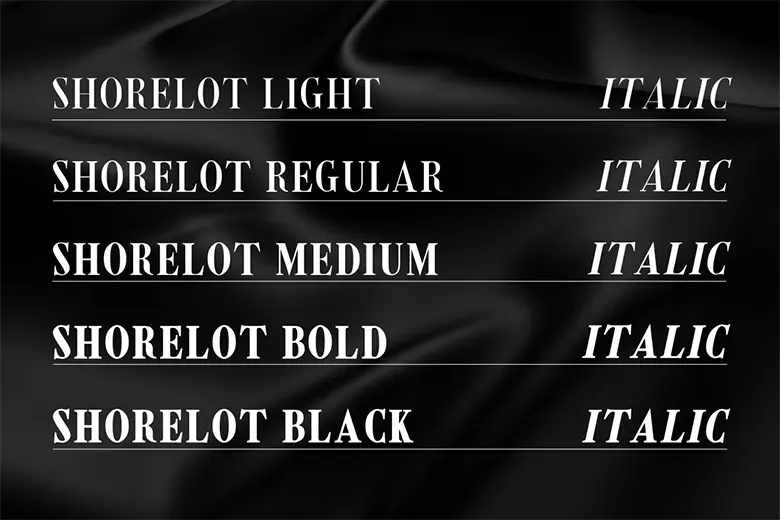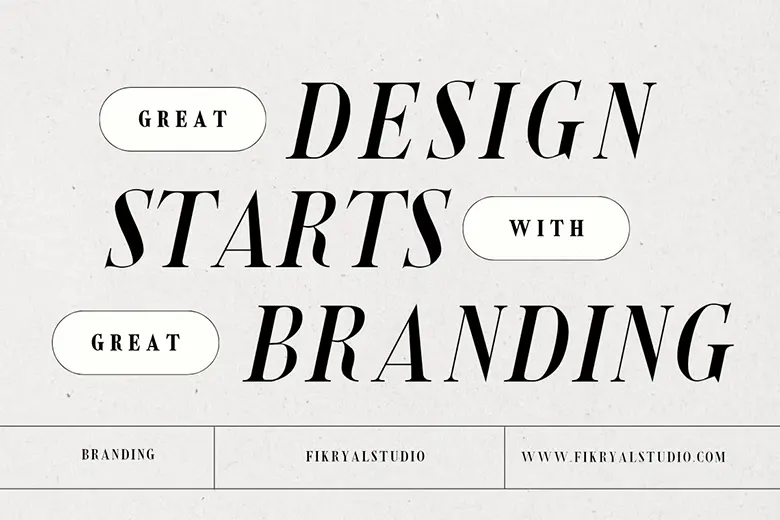
Shorelot is a modern serif font with a classic touch. It offers 10 different styles, including Light, Medium, Bold, and Black, along with matching Italics for extra flexibility. Perfect for branding, magazine layouts, and luxury packaging, this font gives your designs a polished look.
Its timeless style ensures your work remains fresh for years. Whether you’re creating content for a brand or an editorial project, Shorelot helps your designs stand out. Choose it for your next project and give your work a professional edge.
Shorelot Serif Font